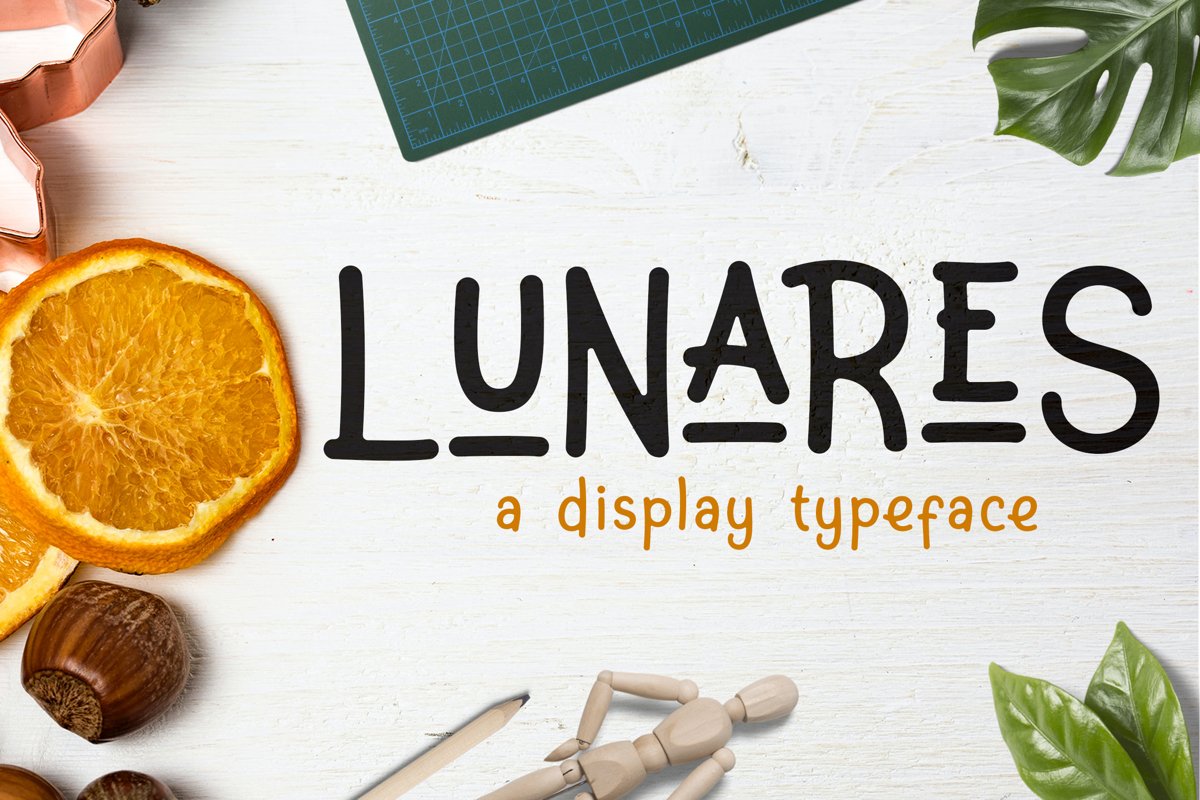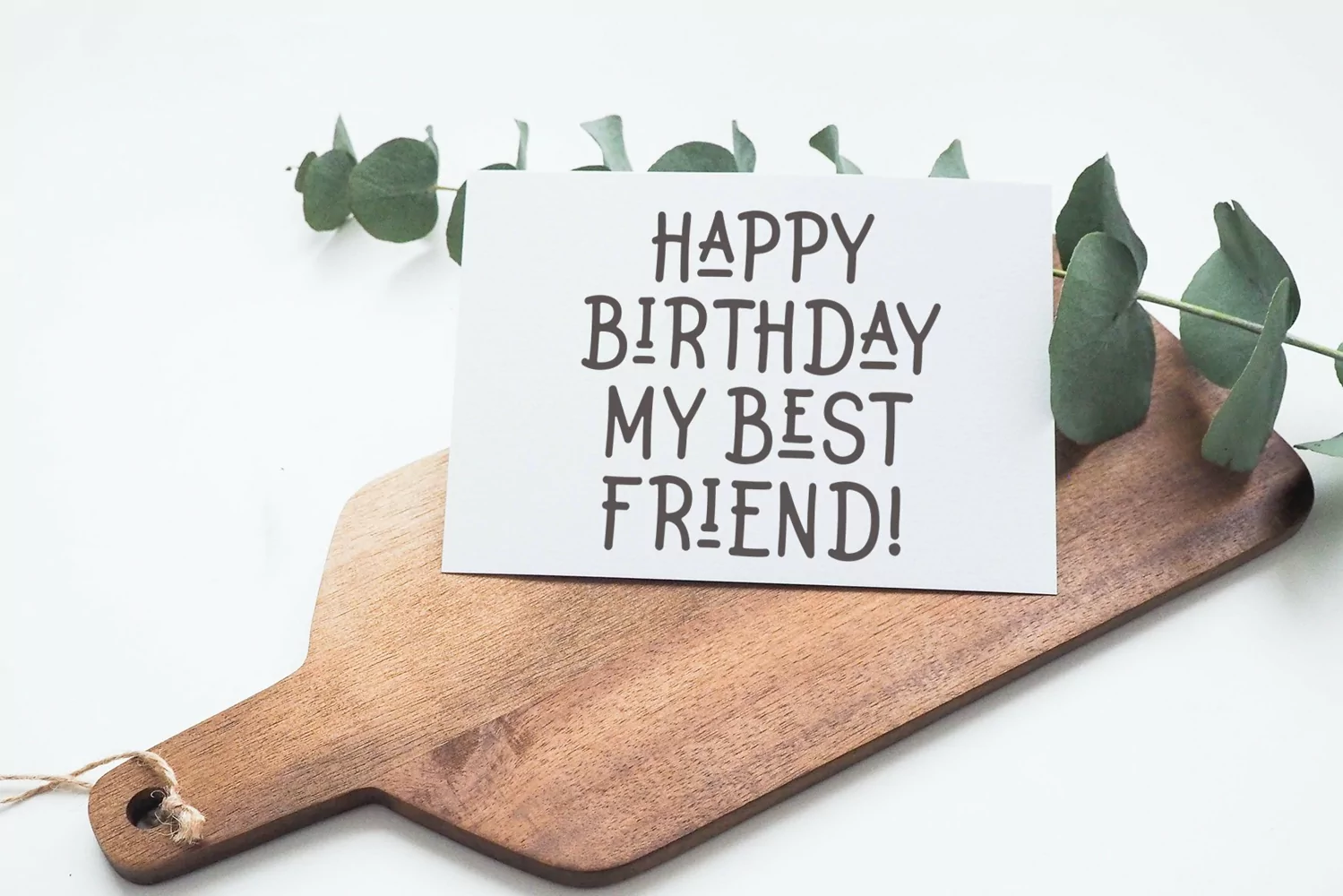
Lunares
Lunares is a display typeface. Prefect for display, quotes, business card, logo, logotype, emblem, badges, header, headline, branding, crafting needs, packaging, merchandise and many more.